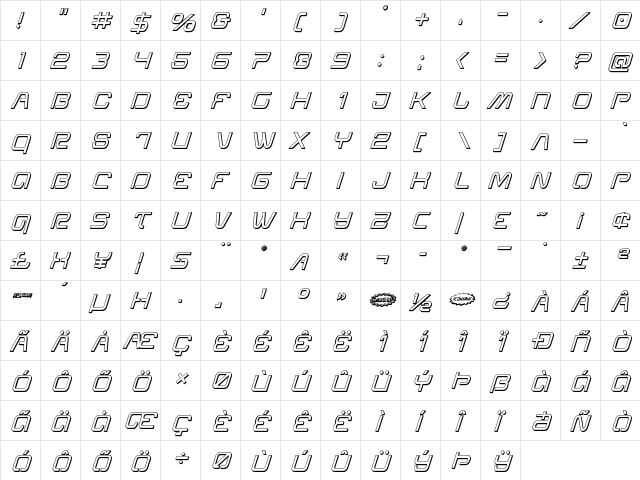
Miracle Mercury 3D Italic Italic
Design Context for Miracle Mercury 3D Italic Typeface
Miracle Mercury 3D Italic offers clean, dependable letterforms without strong stylistic allegiance, making it a practical choice for designers who need flexibility. The dynamic lean of this cut emphasises speed and emphasis in any layout.
Pro Tip: Use Miracle Mercury 3D Italic for emphasis, pull quotes, and subheadings where its slanted energy can add rhythm to the layout.